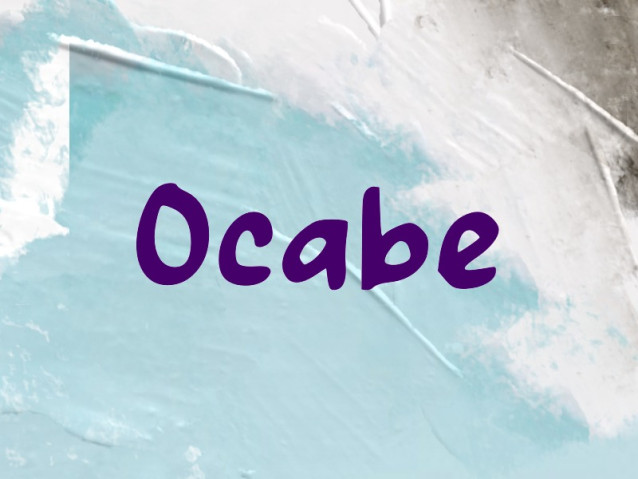
Ocabe Font
Ocabe Font is a simple and modern display font suitable for quotes, logos, headings, titles, and many more. Use it on any of your creative projects, and your designs will become outstanding!